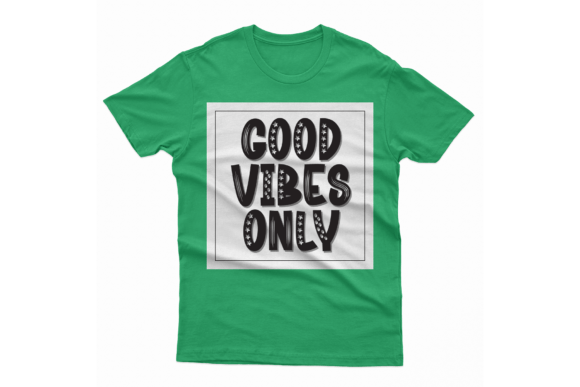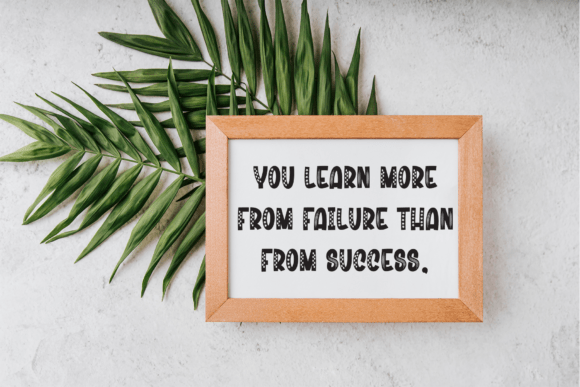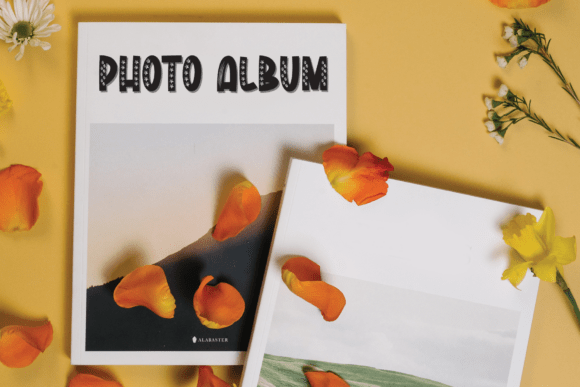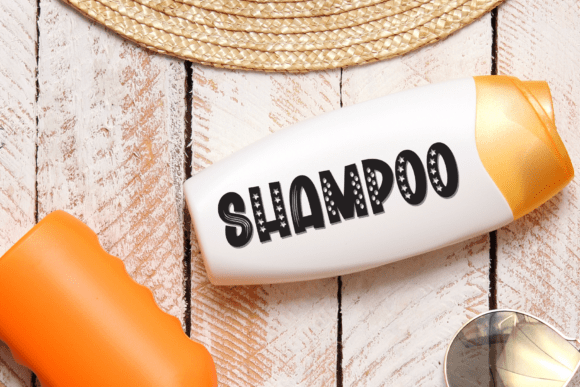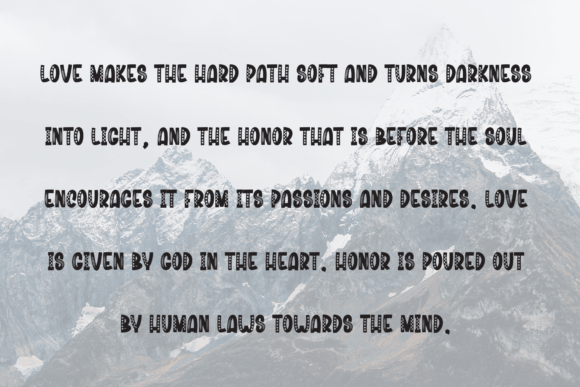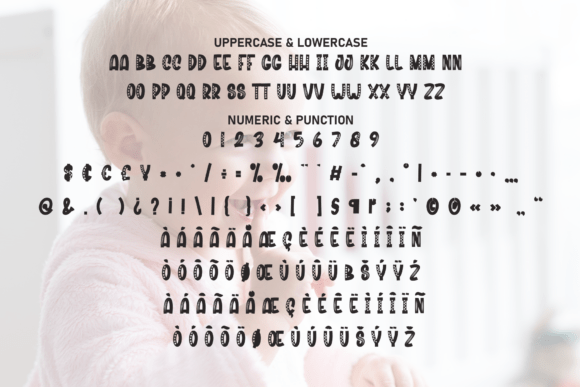
The Birth of a New Favorite: Baby Happy Font
Remember that moment when you’re brainstorming ideas for a new project, and the perfect font just clicks? It’s like finding the missing piece of a puzzle, and suddenly everything falls into place. For designers, this feeling is a beautiful thing. It’s the moment when you know you’ve found the perfect font to convey your message and leave a lasting impression.
Enter Baby Happy Font, a fresh and approachable display font that’s designed to make a statement without overwhelming the senses. With its clean lines and friendly letterforms, this font is perfect for everything from modern headlines to casual branding. Whether you’re working on a packaging design, poster, or website, Baby Happy Font brings a relaxed, yet modern vibe that’s sure to engage your audience.
Baby Happy Font Key Features
- Font Family: Baby Happy Font is a sans-serif font family designed specifically for children’s products and nursery decorations.
- Character Count: The font family includes a total of 300+ characters, including uppercase and lowercase letters, numbers, and punctuation marks.
- Unique Characteristics: Baby Happy Font features rounded shapes, smooth lines, and a playful feel, making it perfect for creating a warm and inviting atmosphere in nurseries and children’s areas.
Designer Review: Baby Happy Font
Overall, I’m impressed with the Baby Happy Font, but like any font, it has its strengths and weaknesses.
- The font’s playful, whimsical feel makes it perfect for creating child-friendly designs, such as children’s books, nursery decor, and baby products.
- The font’s rounded edges and soft curves give it a friendly, approachable vibe that’s sure to resonate with parents and kids alike.
- The font’s versatility allows it to work well in a range of contexts, from digital designs to print materials.
- The font’s simplicity may make it feel a bit too basic for more complex or sophisticated designs.
- The font’s rounded edges may not be suitable for designs that require a more modern or edgy feel.
- The font’s limited character set may require additional formatting or styling to achieve the desired look.
Overall, I think the Baby Happy Font is a solid choice for designers working on child-friendly projects. While it may not be the best fit for every design, it’s a great option for creating playful, approachable designs that are sure to delight kids and parents alike.
Some common use cases for Baby Happy Font include:
- Children’s book illustrations and design.
- Baby product packaging and branding.
- Education and learning materials.
Alternatives to Baby Happy Font for Designers
Great Vibes is a beautiful, elegant script font perfect for creating a whimsical and playful atmosphere. It’s ideal for designing invitations, posters, and other promotional materials where a touch of sophistication is needed. In comparison to Baby Happy Font, Great Vibes is more refined and less childish, making it suitable for a wider range of designs.
Pacifico is a stunning, modern script font that exudes a sense of relaxation and tranquility. It’s perfect for designing beach-themed or spa-inspired materials, as well as wedding invitations and other special occasion designs. Compared to Baby Happy Font, Pacifico has a more laid-back and natural feel, making it ideal for designs that require a calming atmosphere.
Crimson Text is a classic, elegant serif font that’s perfect for creating a sophisticated and professional atmosphere. It’s ideal for designing business cards, resumes, and other materials where a touch of elegance is needed. In comparison to Baby Happy Font, Crimson Text is more formal and less playful, making it suitable for designs that require a sense of authority.
Q: What is the recommended font size for using the Baby Happy Font?
The recommended font size for using the Baby Happy Font is between 12pt and 24pt. This range provides optimal legibility and visual appeal. However, feel free to experiment with different font sizes to achieve the desired effect for your project.